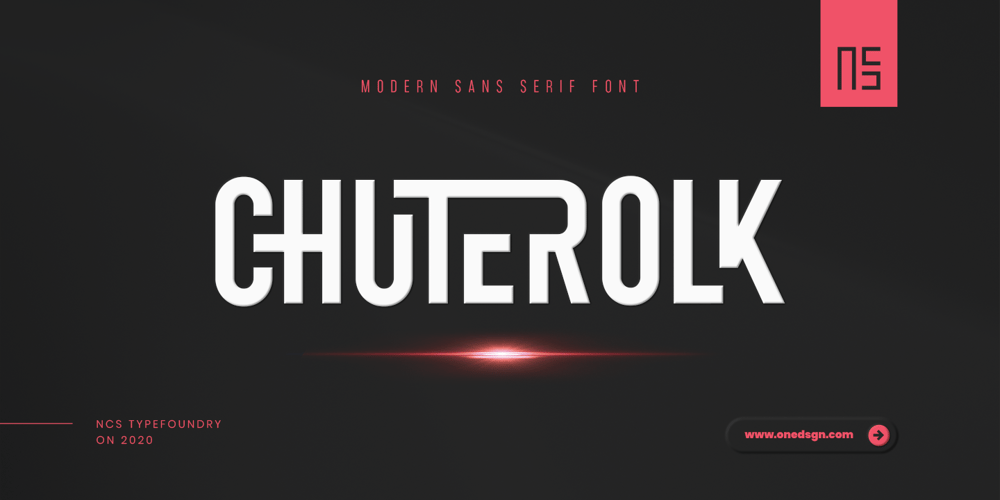
Chuterolk
Chuterolk font
Chuterolk Font Family was designed by Toni Setiawan and published by Namara Creative Studio. Chuterolk contains 8 styles and family package options. Modern sans serif font that is out of this world. A strong balance between strong pointed corners and smooth curves, Perfect for all purposes but especially for headlines. With 8 Variant to choose : Light, Light Italic, Regular, Italic, Rounded, Shadow, Bold and Bold Italic. This font also includes alternative glyphs, ligatures and multilingual support.